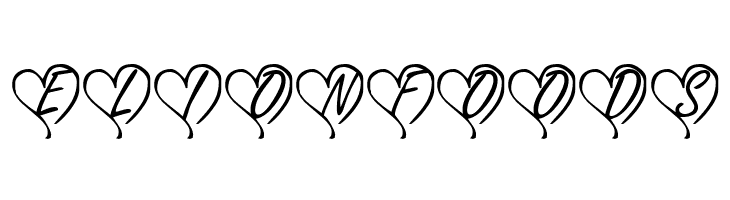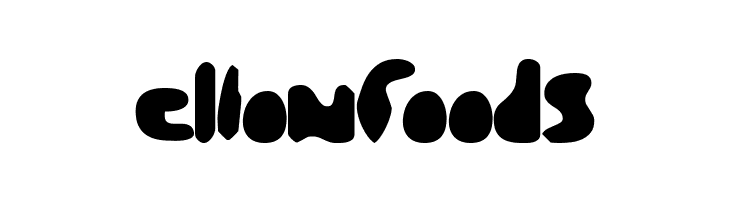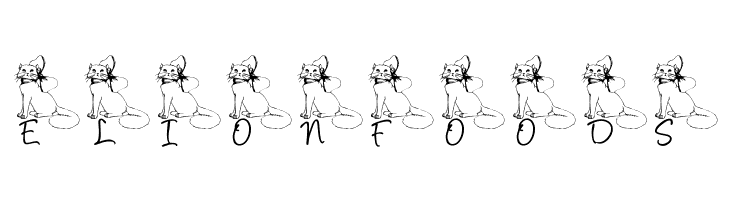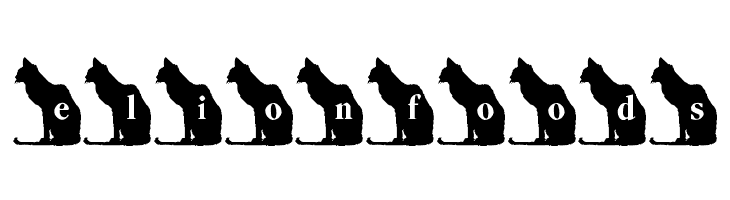
A romantic script font with each letter enclosed in a heart shape.
A playful font with each letter encased in a yo-yo design, perfect for fun and youthful projects.
A decorative font showcasing zodiac symbols in a modern, illustrative style.
A playful, cat-themed handwritten font with whimsical charm.
A whimsical font with mouse-themed uppercase and cheese-themed lowercase letters.
A playful, bold font with a liquid-like, organic appearance.
A decorative font featuring cat silhouettes integrated into each letter.